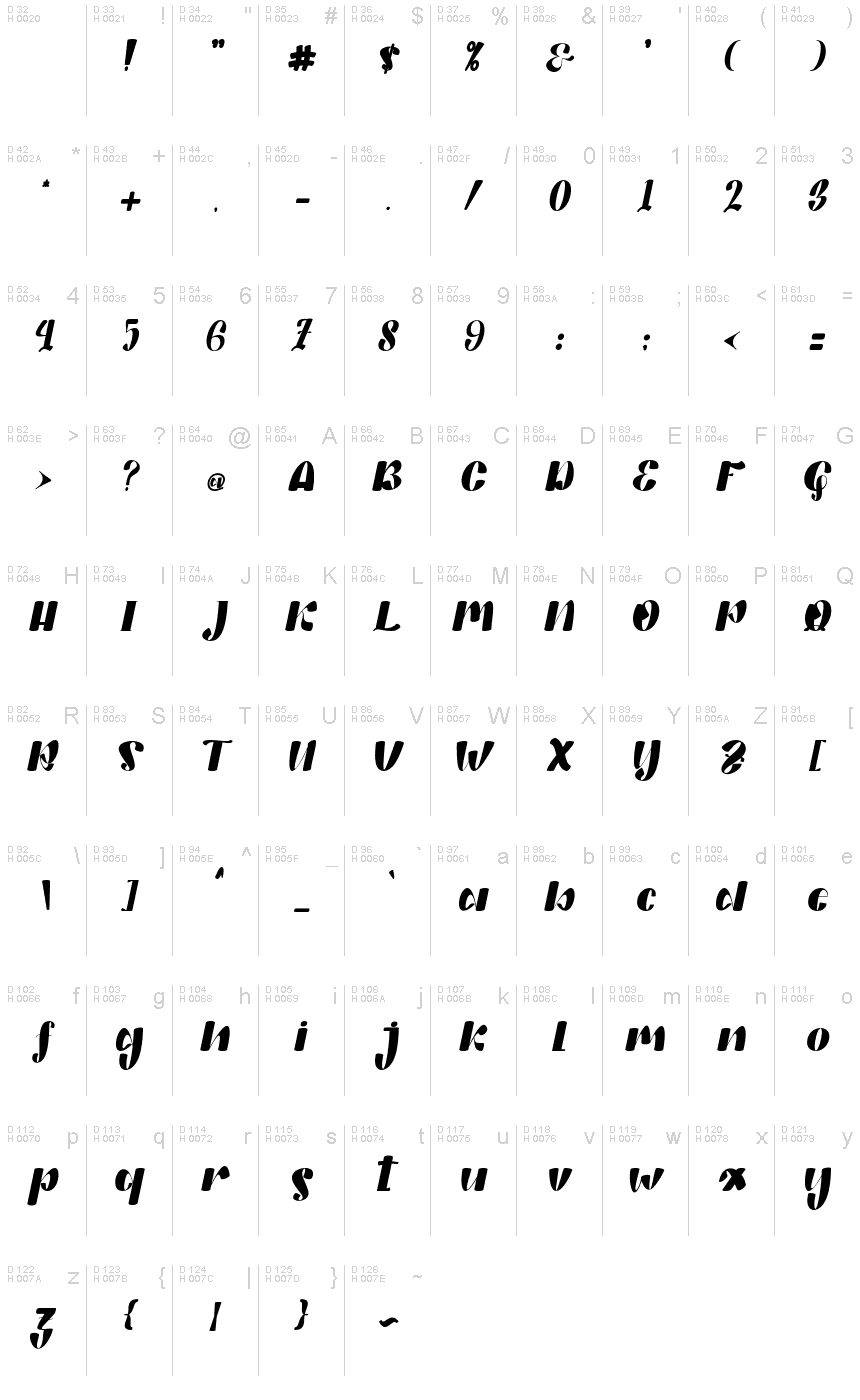
Rathetta Italic
Rathetta Italic, a masterpiece by renowned font designer Harjuno Kristanto, is the epitome of modern display fonts. With its bold weight and sleek italic style, this font exudes confidence and sophistication.
Its elegant curves and unique letterforms make it suitable for a wide range of projects. Whether you're designing eye-catching logos, attention-grabbing headlines, or stylish packaging, Rathetta Italic will elevate your work to new heights. Embrace the versatility of this distinctive typeface and let your creativity soar in branding campaigns, editorial layouts, or even luxurious product designs.